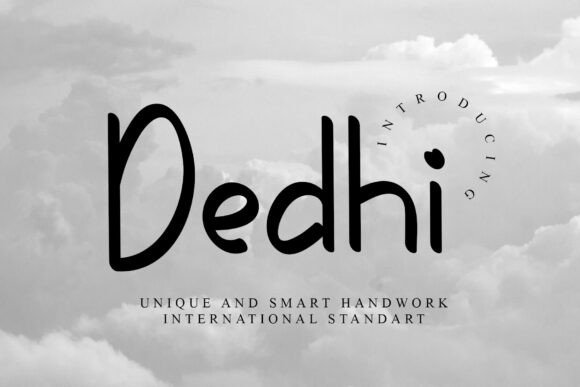
Dedhi Font: Elevate Your Designs with Elegance and Sophistication
In the world of typography, fonts play a crucial role in conveying the tone and personality of a design. Among the numerous fonts available, Dedhi Font stands out for its unique and elegant appearance, making it an excellent choice for various design projects. In this article, we’ll explore the features and benefits of Dedhi Font, and how it can elevate your designs to new heights.
What is Dedhi Font?
Dedhi Font is a beautifully crafted, handwritten font that exudes elegance and sophistication. Its unique design makes it perfect for a wide range of applications, including wedding invitations, greeting cards, billboards, logos, business cards, and any other design that requires a personal, human touch.
Key Features of Dedhi Font
- Unique and Elegant Design: Dedhi Font boasts a distinctive, hand-crafted design that sets it apart from other fonts.
- Varied Baseline: The font features a varied baseline, which gives it a natural, hand-made appearance.
- Handwritten Touch: The font’s hand-crafted design adds a personal touch to any design project.
The Benefits of Using Dedhi Font
Dedhi Font offers numerous benefits that make it an excellent choice for designers and crafters. Some of the advantages of using Dedhi Font include:
1. Adds a Personal Touch
Dedhi Font’s handwritten design adds a personal, human touch to any design project, making it perfect for applications where a personal connection is desired.
2. Versatile and Flexible
Dedhi Font is highly versatile and can be used for a wide range of design projects, from wedding invitations and greeting cards to billboards and logos.
4. High-Quality Design
Dedhi Font is crafted with attention to detail, ensuring a high-quality design that will elevate your projects.
Tips for Getting the Most Out of Dedhi Font
To get the most out of Dedhi Font, consider the following tips:
1. Pair with Other Fonts
Pair Dedhi Font with other fonts to create a unique and visually appealing design.
2. Experiment with Colors
Try out different colors to find the perfect match for your design.
3. Use on Various Design Materials
Use Dedhi Font on various design materials, such as business cards, brochures, and posters, to create a cohesive brand image.
Dedhi Font is a unique and elegant font that can elevate your designs to new heights. Its handwritten touch, varied baseline, and PUA-encoded features make it perfect for a wide range of design projects. With its versatility, flexibility, and high-quality design, Dedhi Font is an excellent choice for designers and crafters looking to add a personal touch to their work.